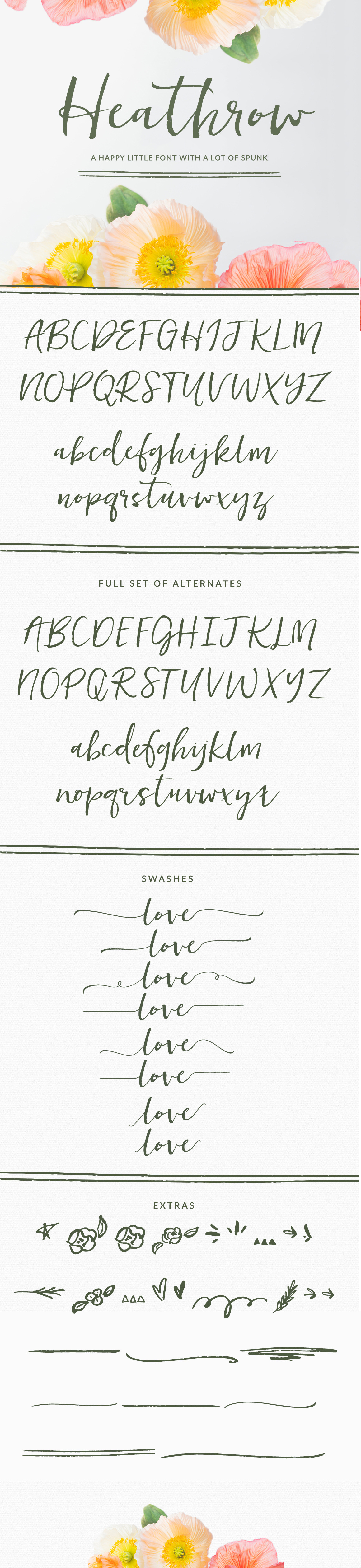
Heathrow Font
Meet Heathrow, a happy, little script font with a lovely hand-brushed texture, alternates, swashes, and extras galore.
The Heathrow family includes a complete set of alternate letterforms for both upper and lowercases.
Heathrow would be a perfect fit for wedding invitations, branding, signage, and so much more. I hope you just love using Heathrow for all your projects!